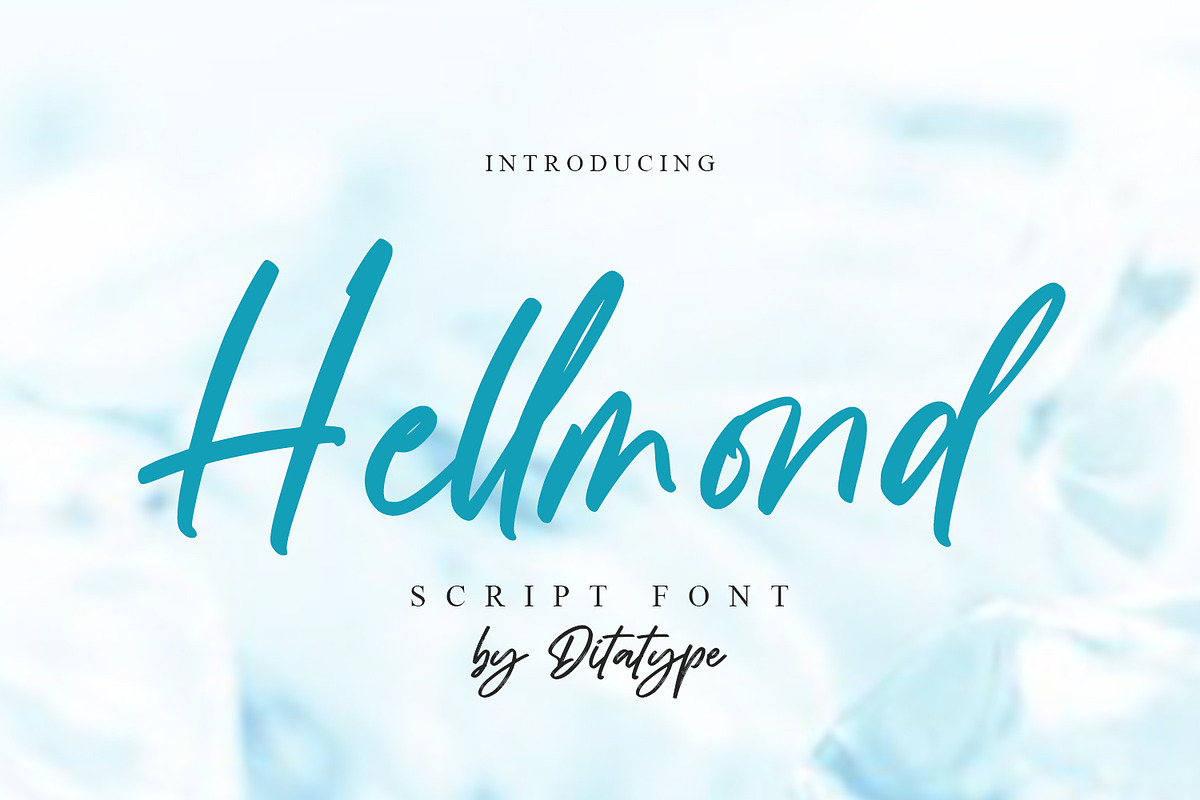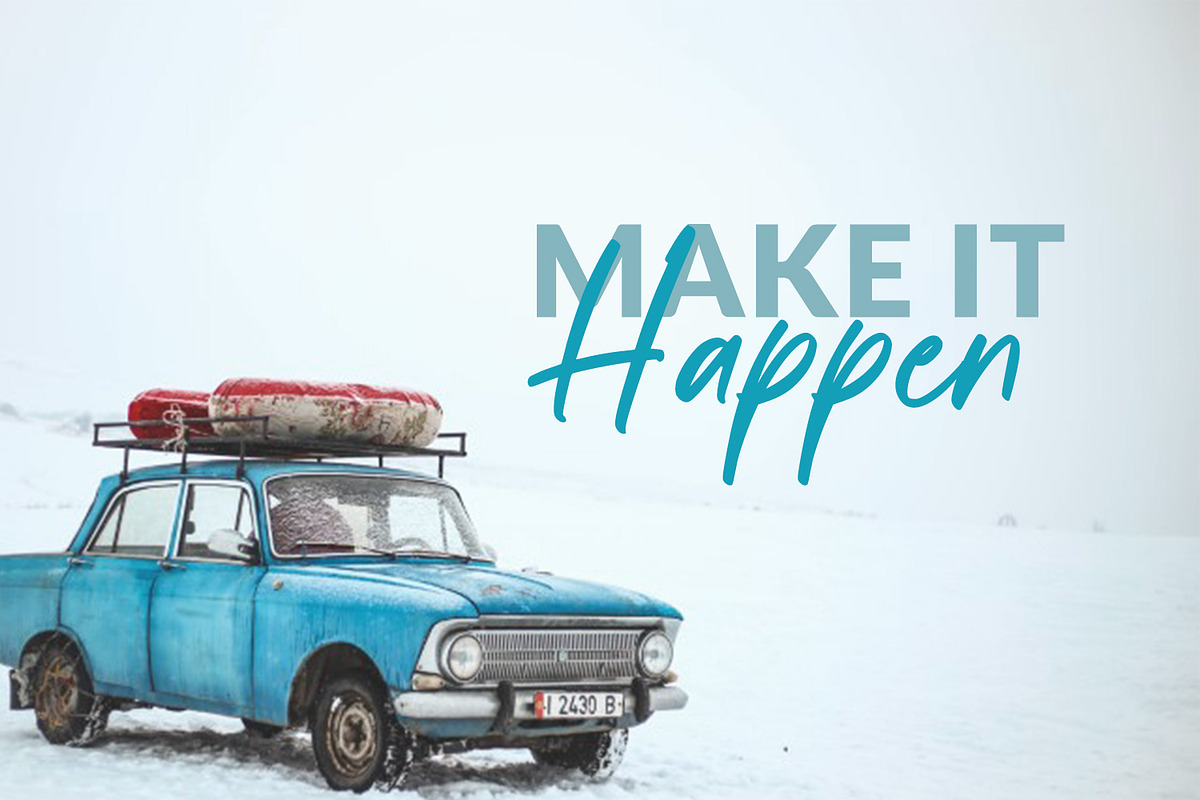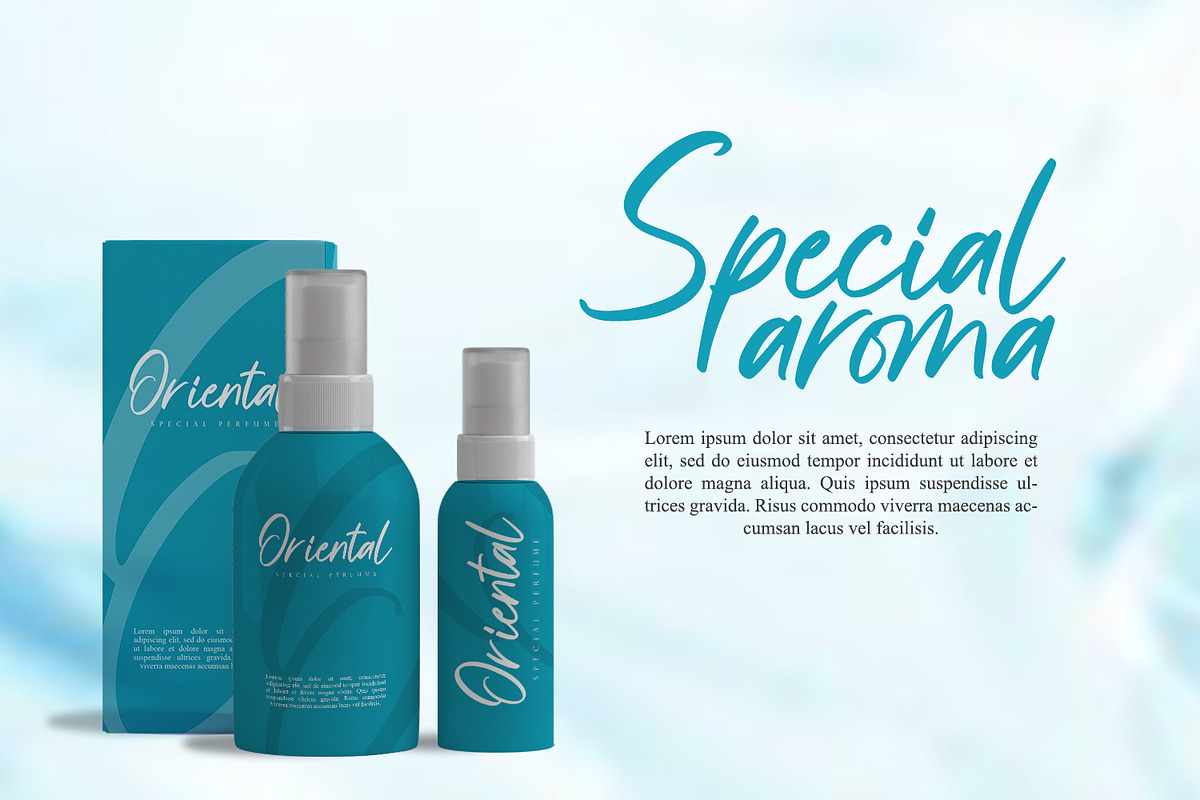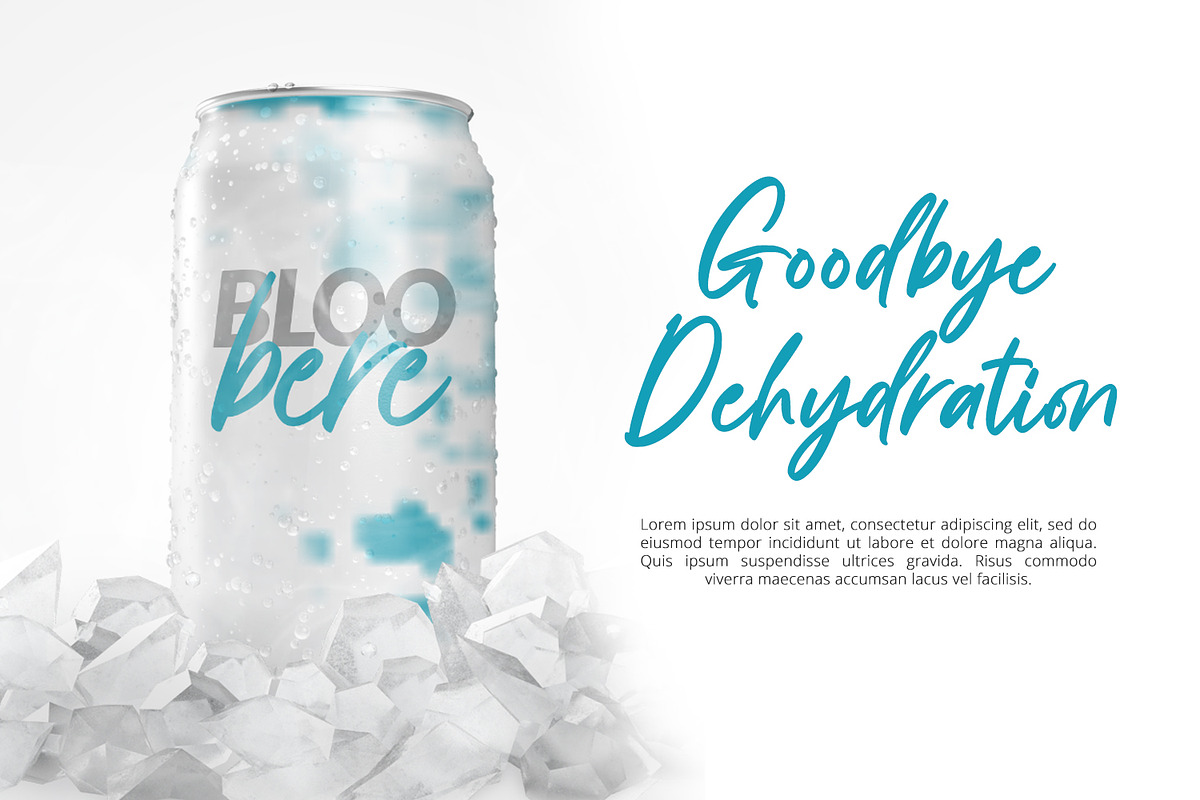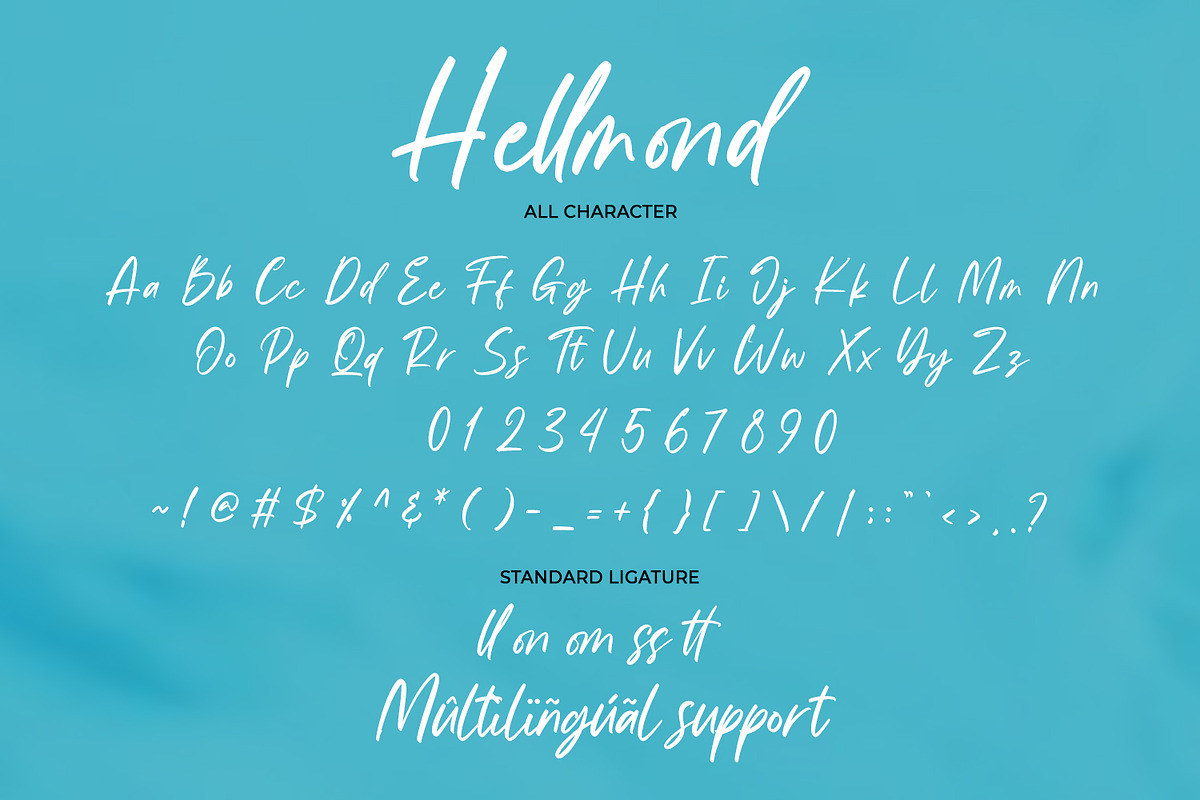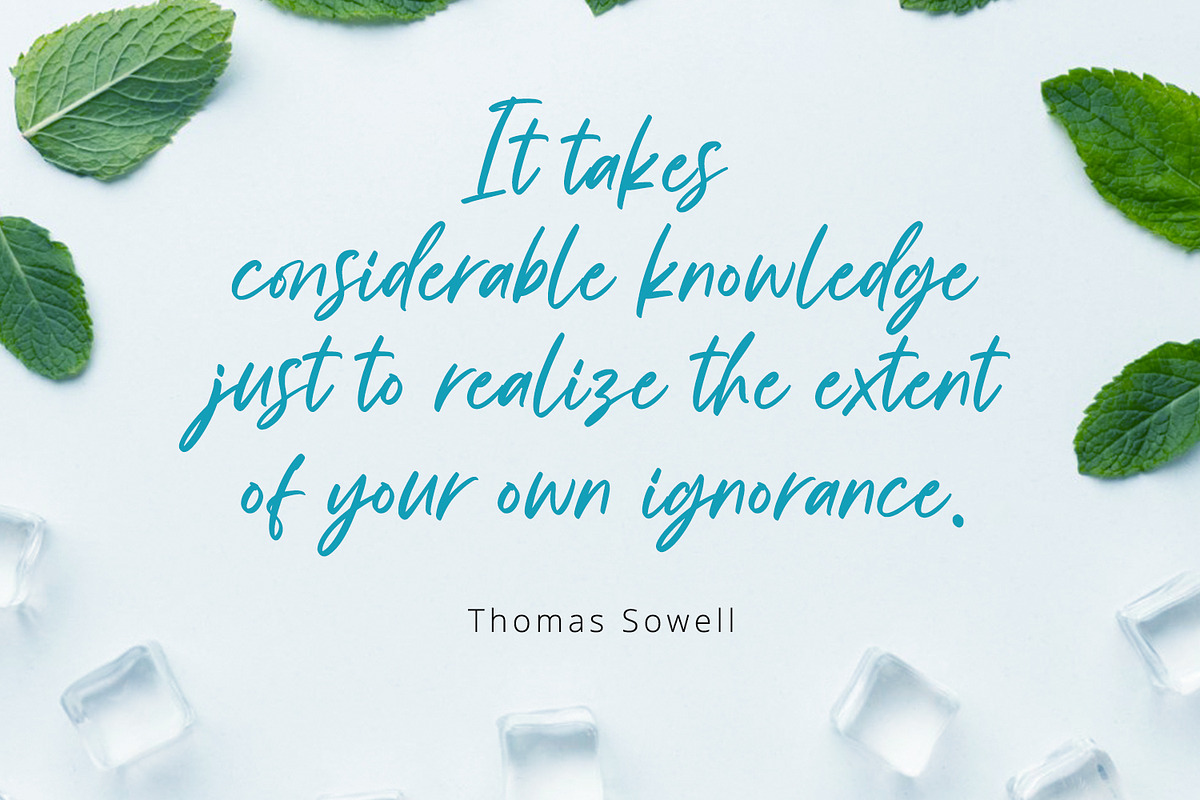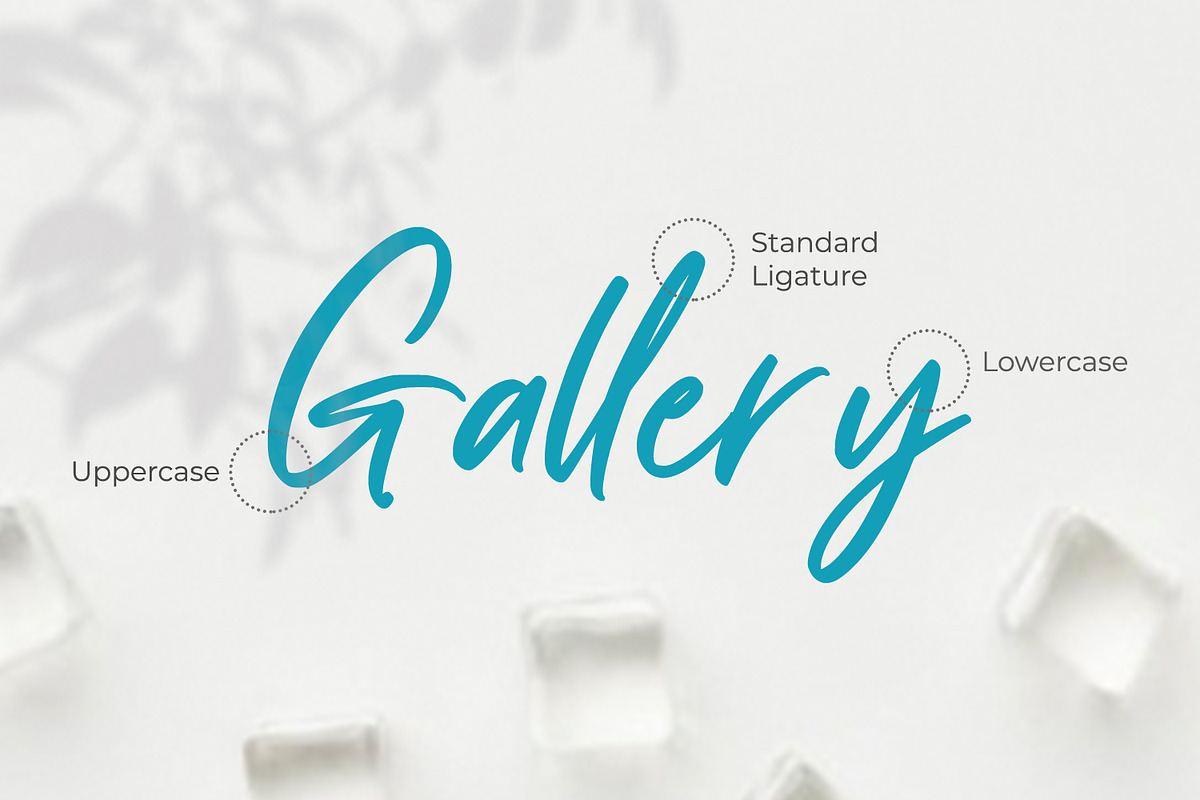
Hellmond
Hellmond is a natural handwritten font. It brings a modern and beautiful typeface. Made for any professional project branding. Every stroke, and curve was created to entice happiness and elegance. Use it to create standout headings, promote your online sales, Instagram quotes, and even printed materials like business cards, t-shirts, or invitations.
- Beautiful Ligatures